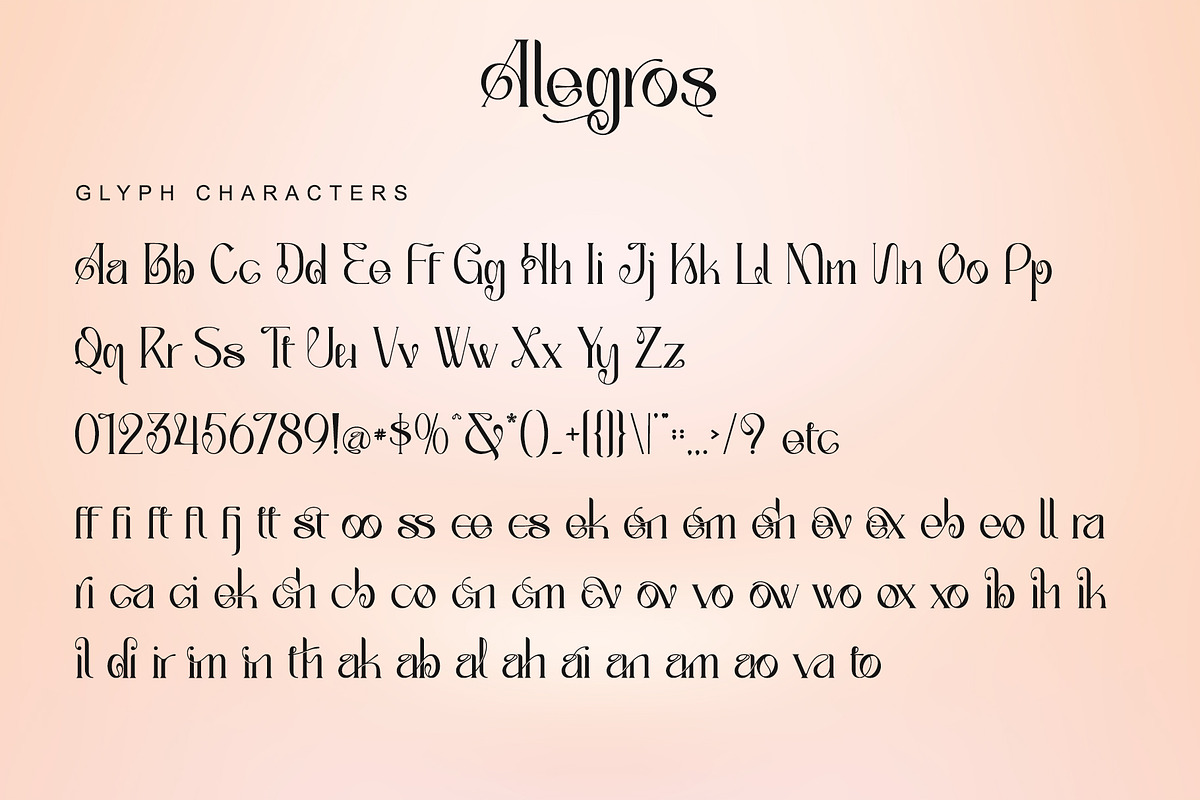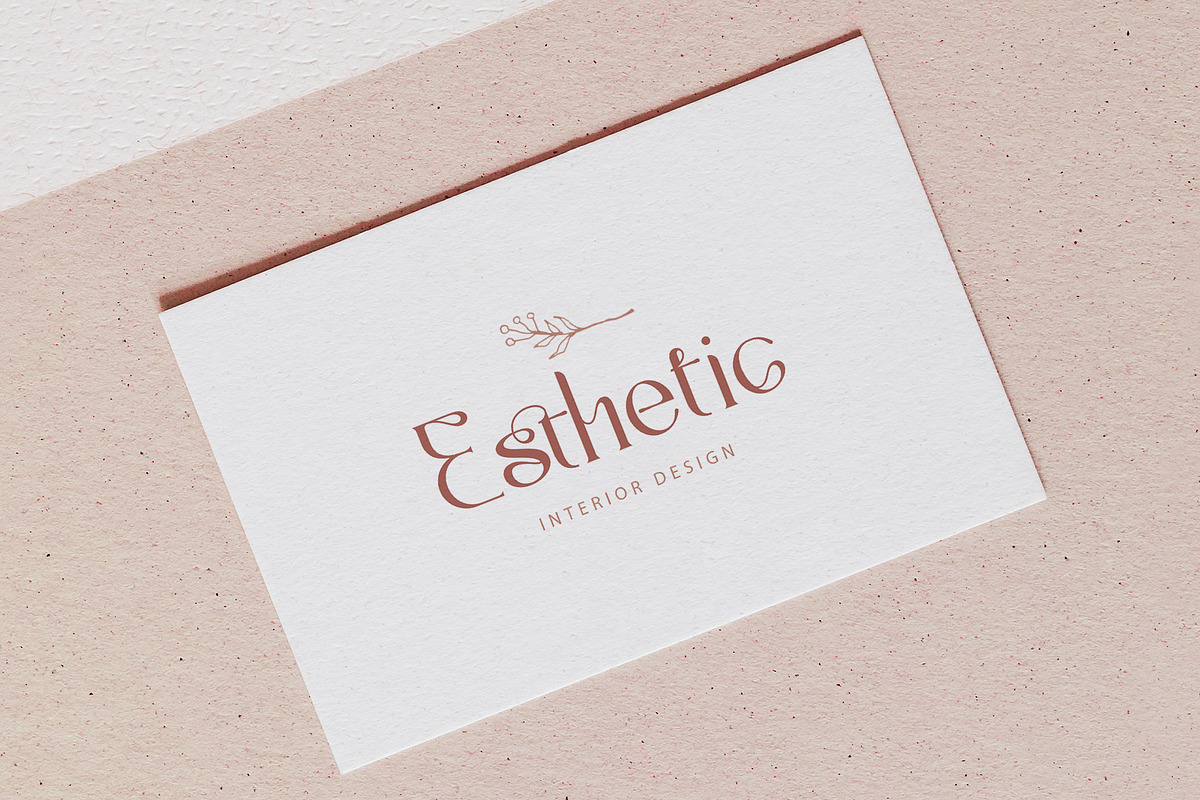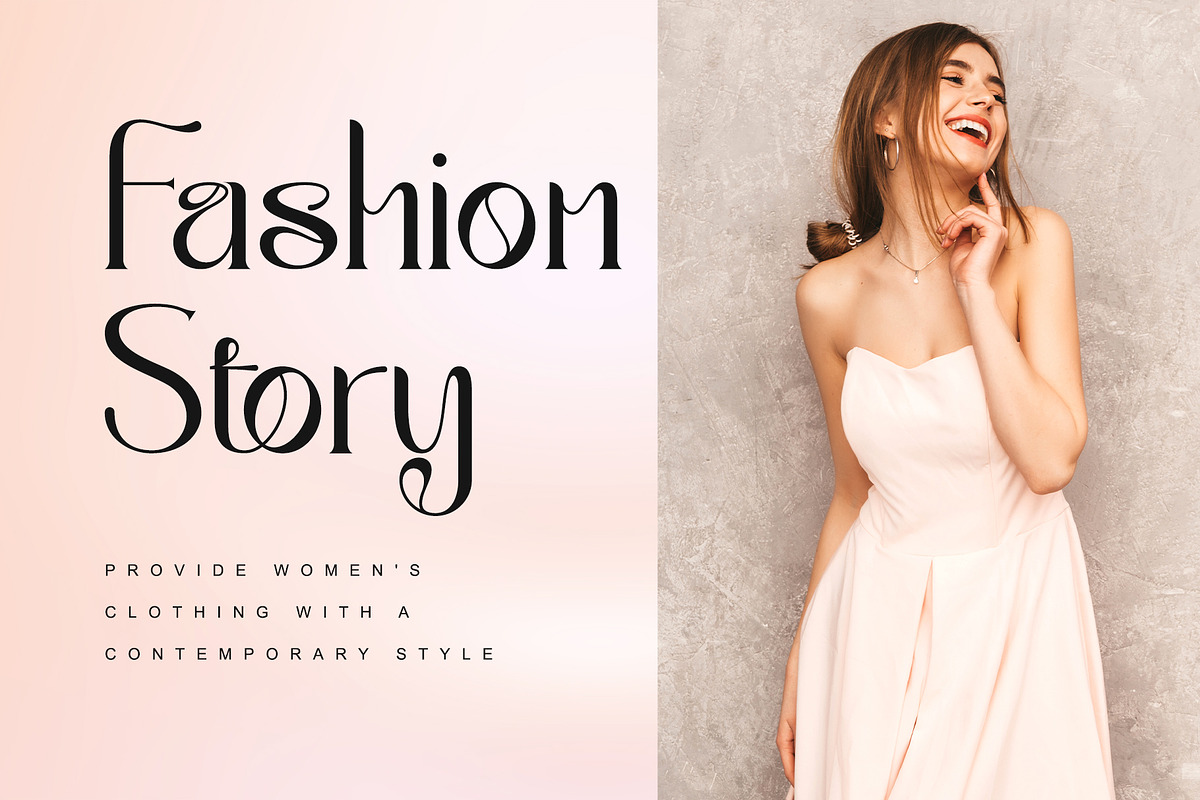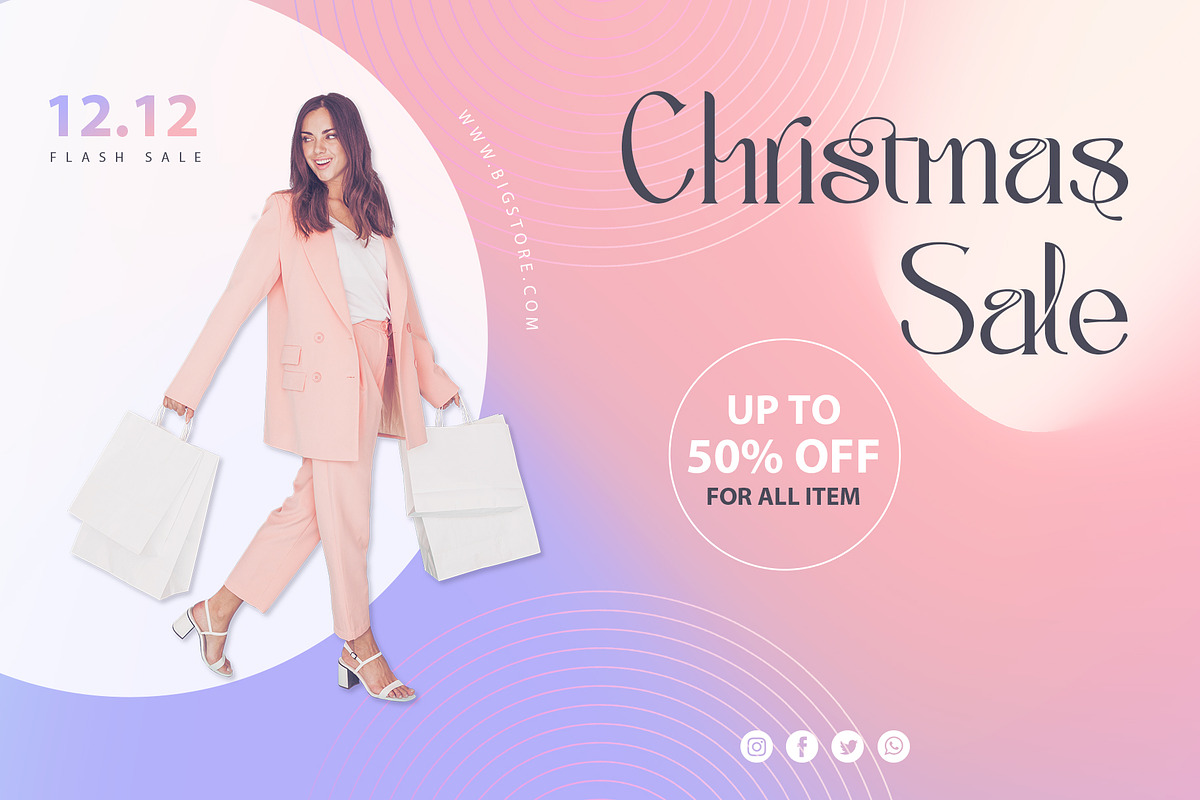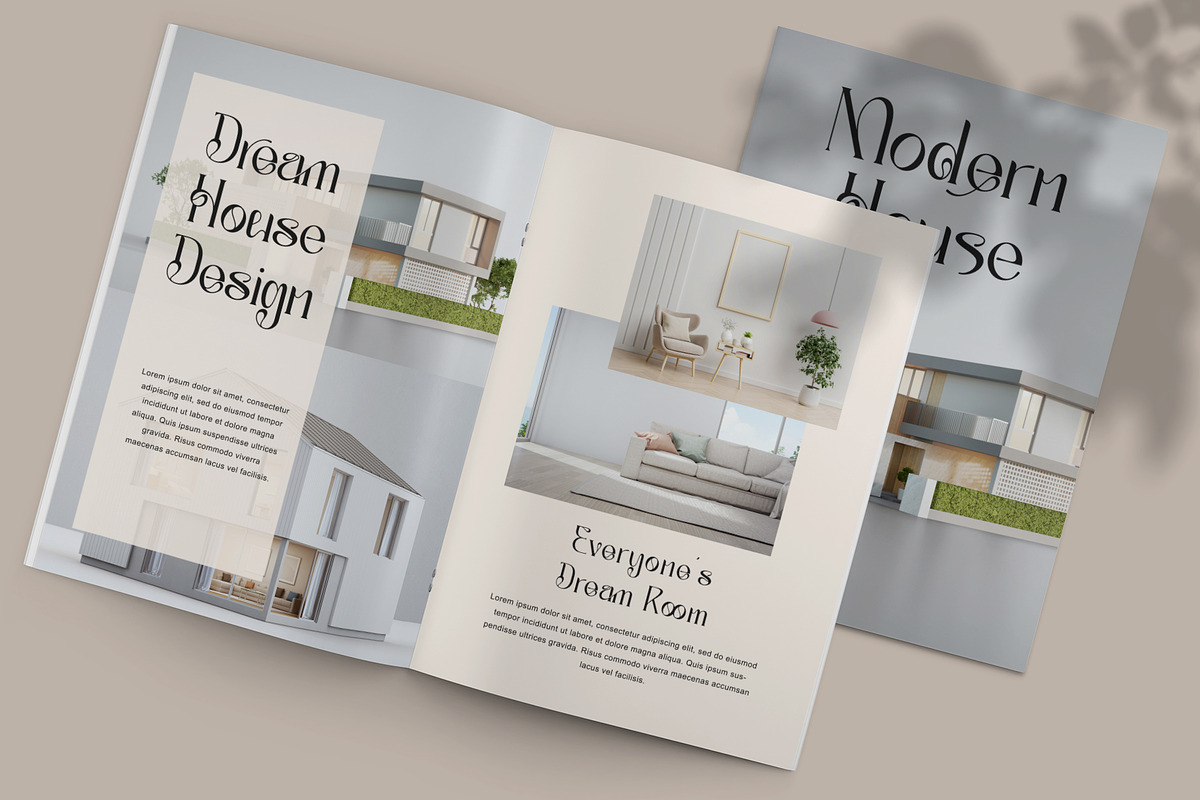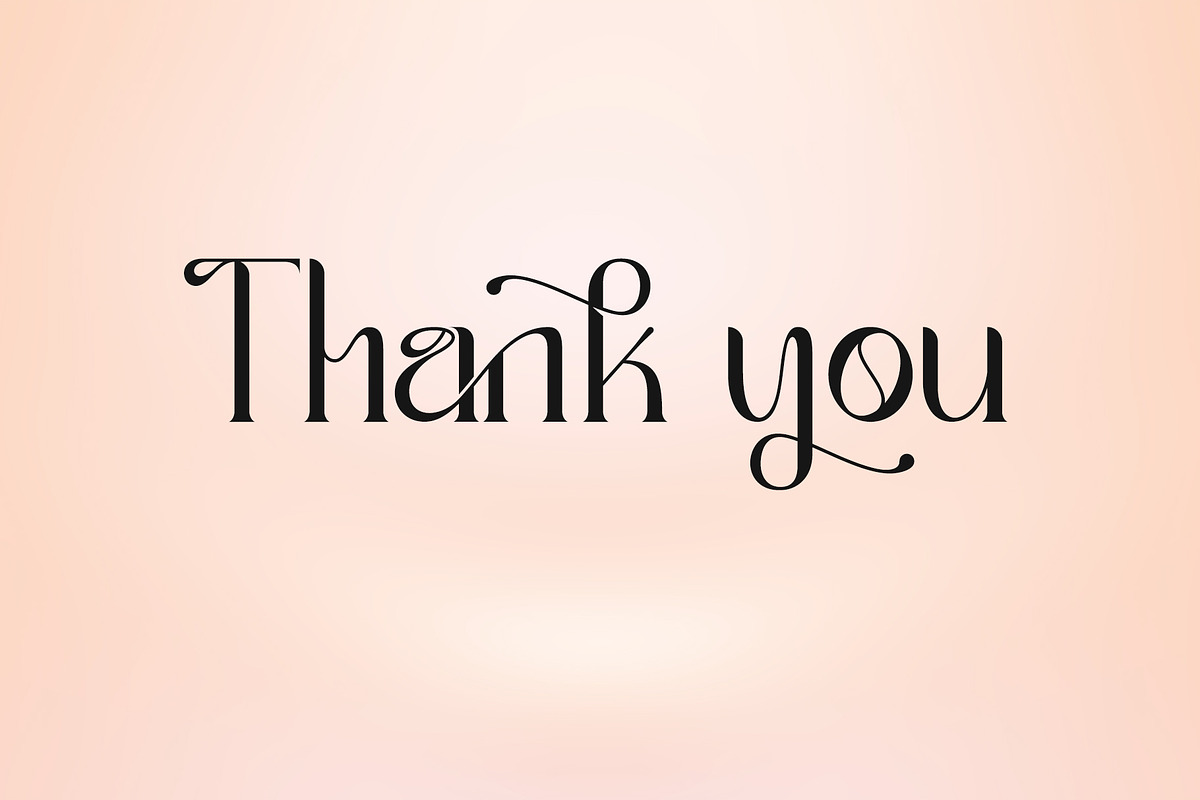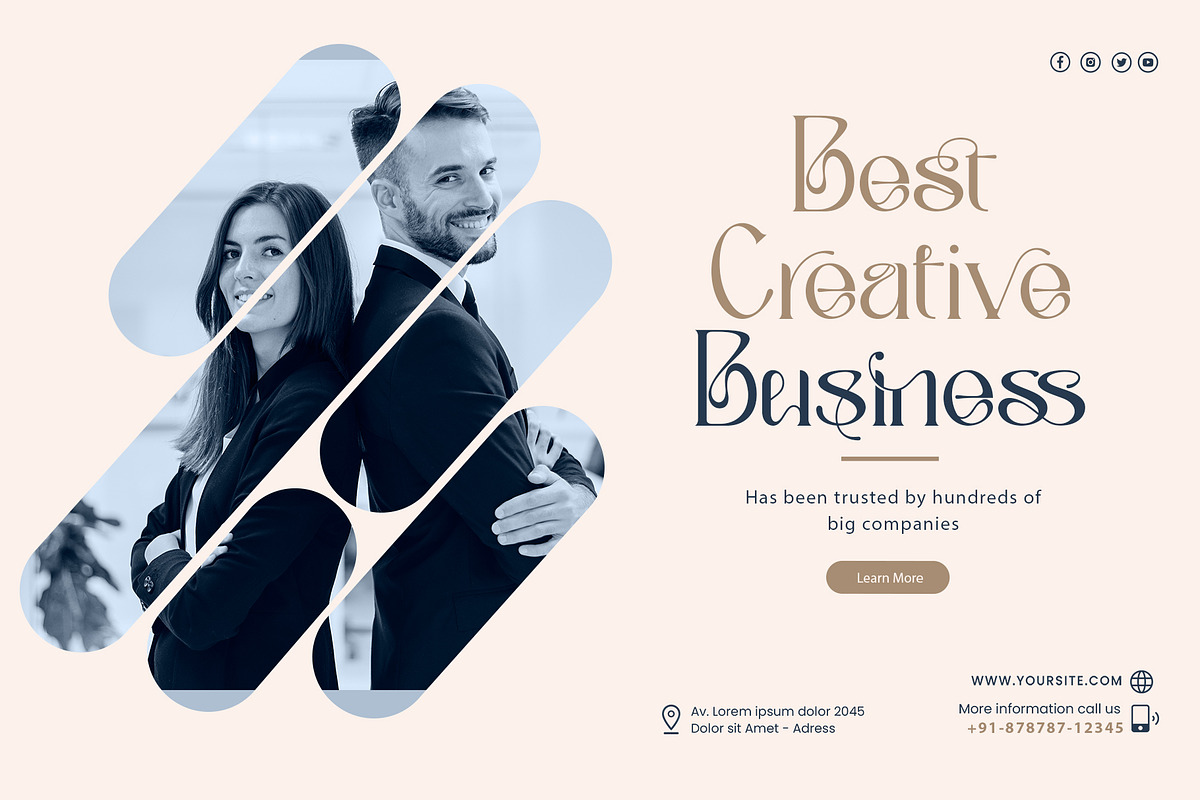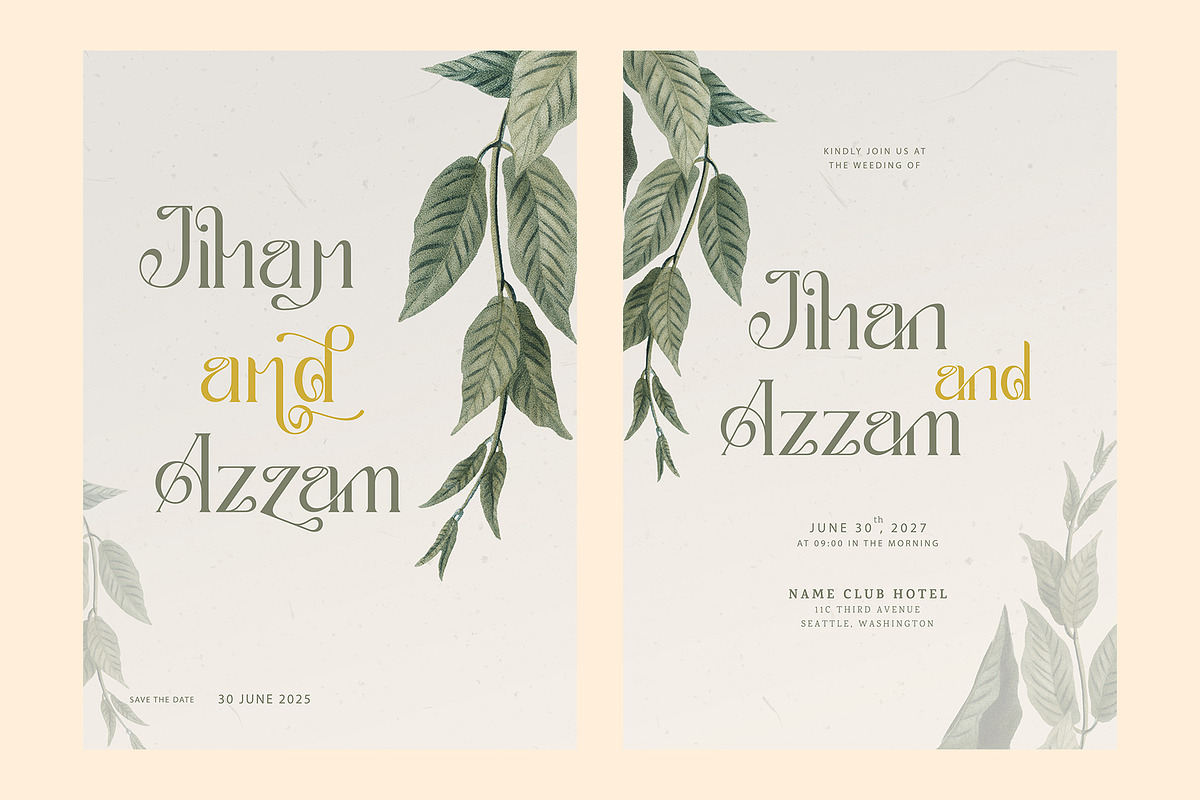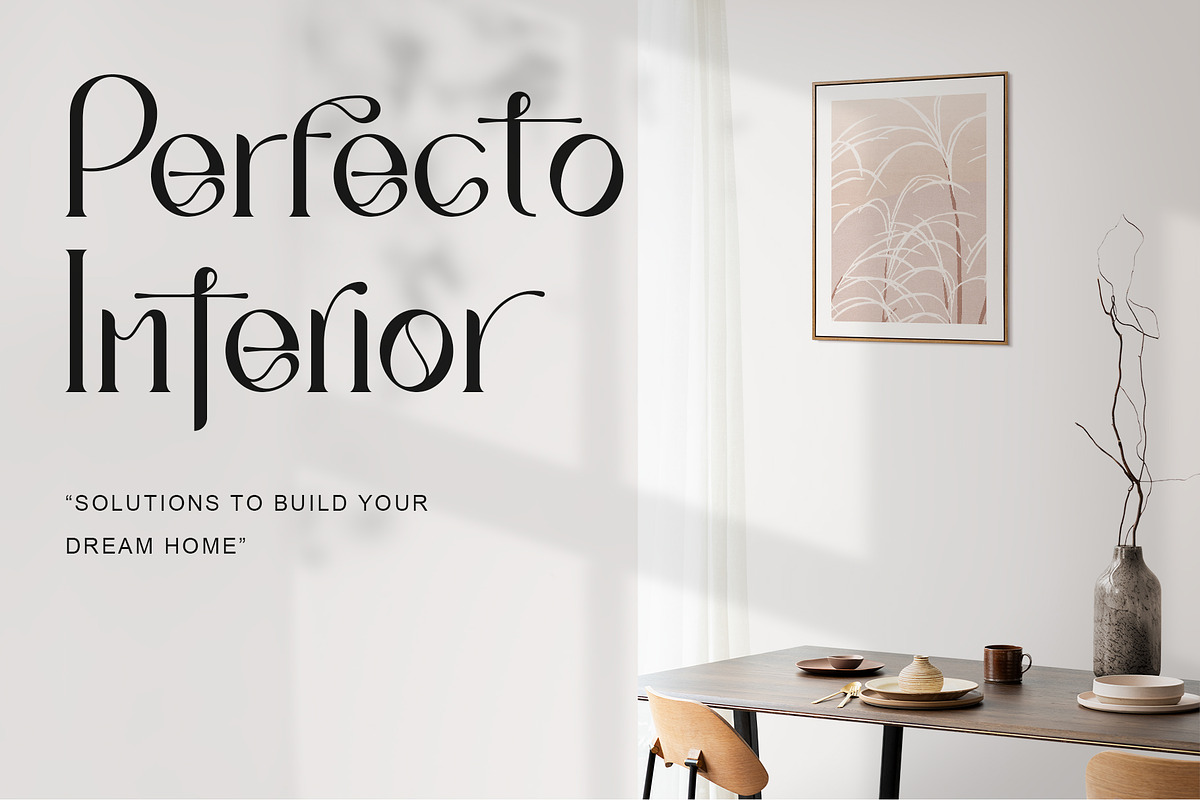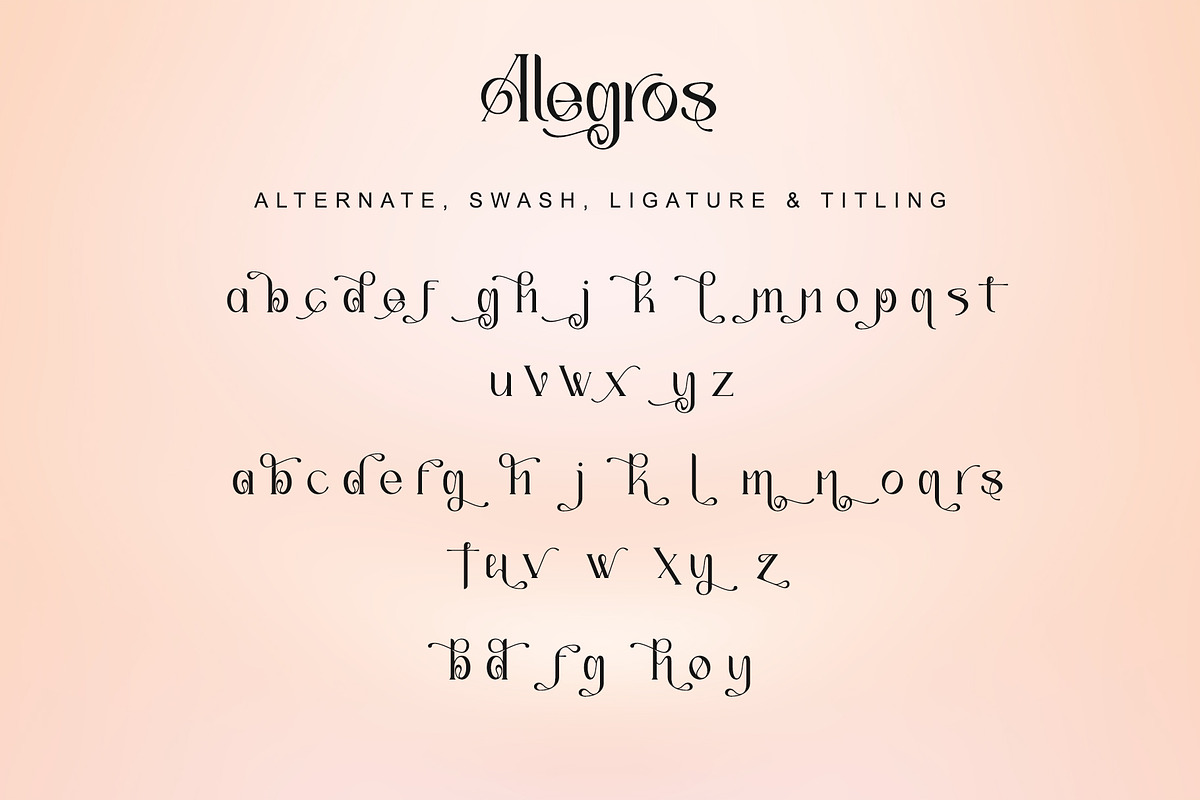
Alegros
Alegros is a stylish and elegant serif font. It is suitable for various designs due to its neat and clean style. Incredibly versatile, this font fits a vast pool of methods, elevating them to the highest levels. Comes with some alternates and ligatures, so you can combine them to make a perfect typography design. It is ideal for your upcoming projects. Such as luxury logo and branding, classy editorial design, magazines, Packaging, poster, movie, cosmetic brand, fashion promotions, art gallery branding, and more. This font is PUA encoded, meaning you can access all of the glyphs.
Many Features:
- Support multilingual; ä ö ü Ä Ö Ü ß ¿ ¡
- lowercase and uppercase letters
- Alternate, Swash, Titling, & Ligature.